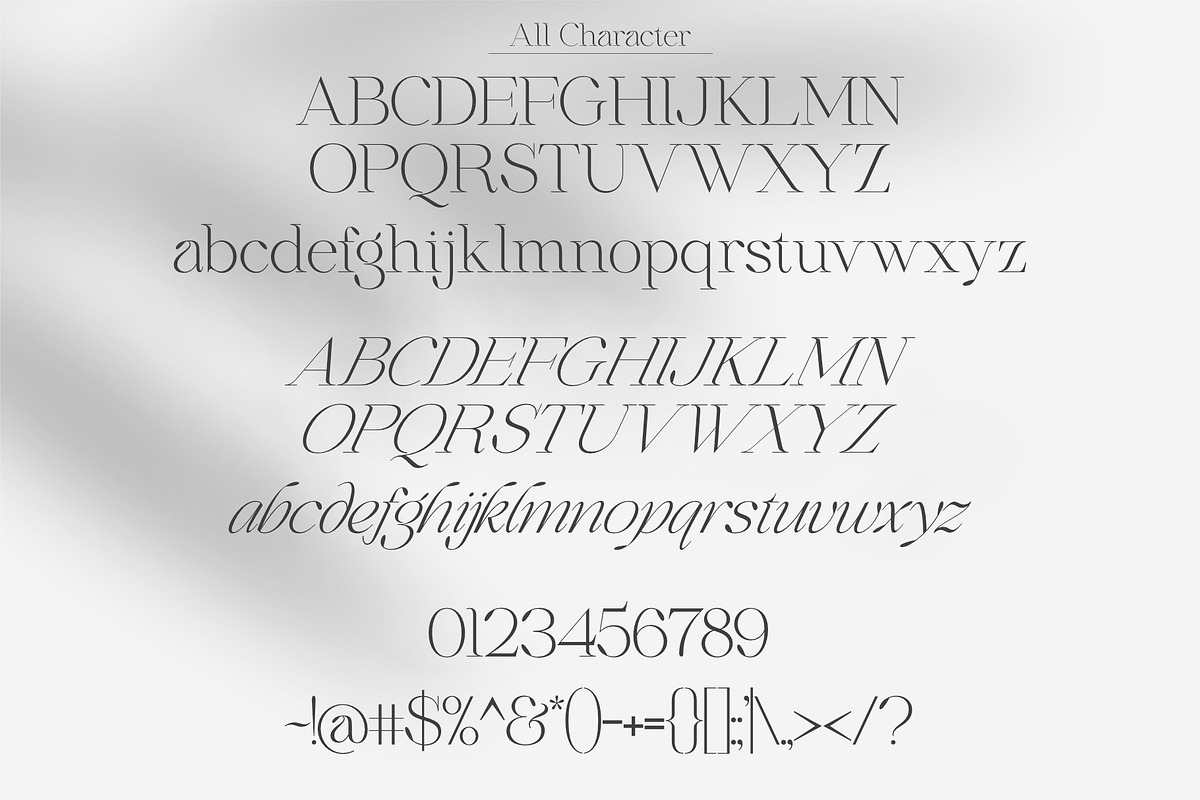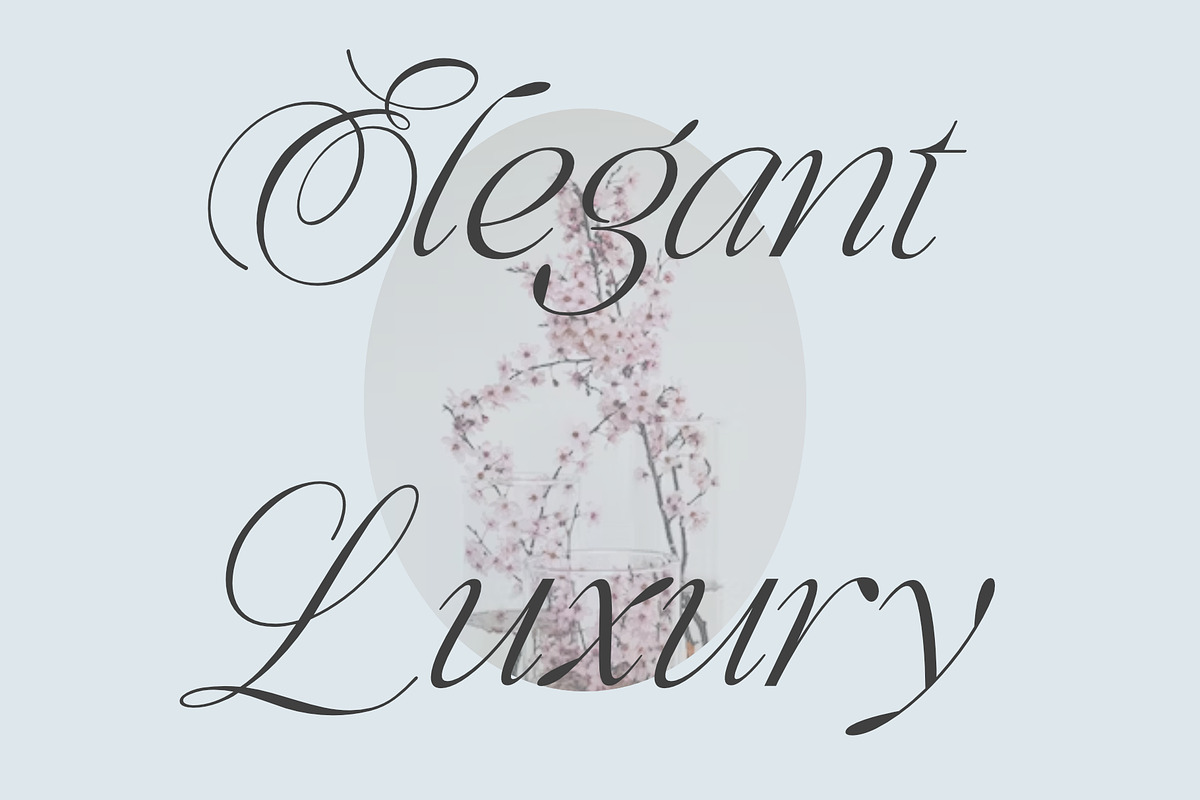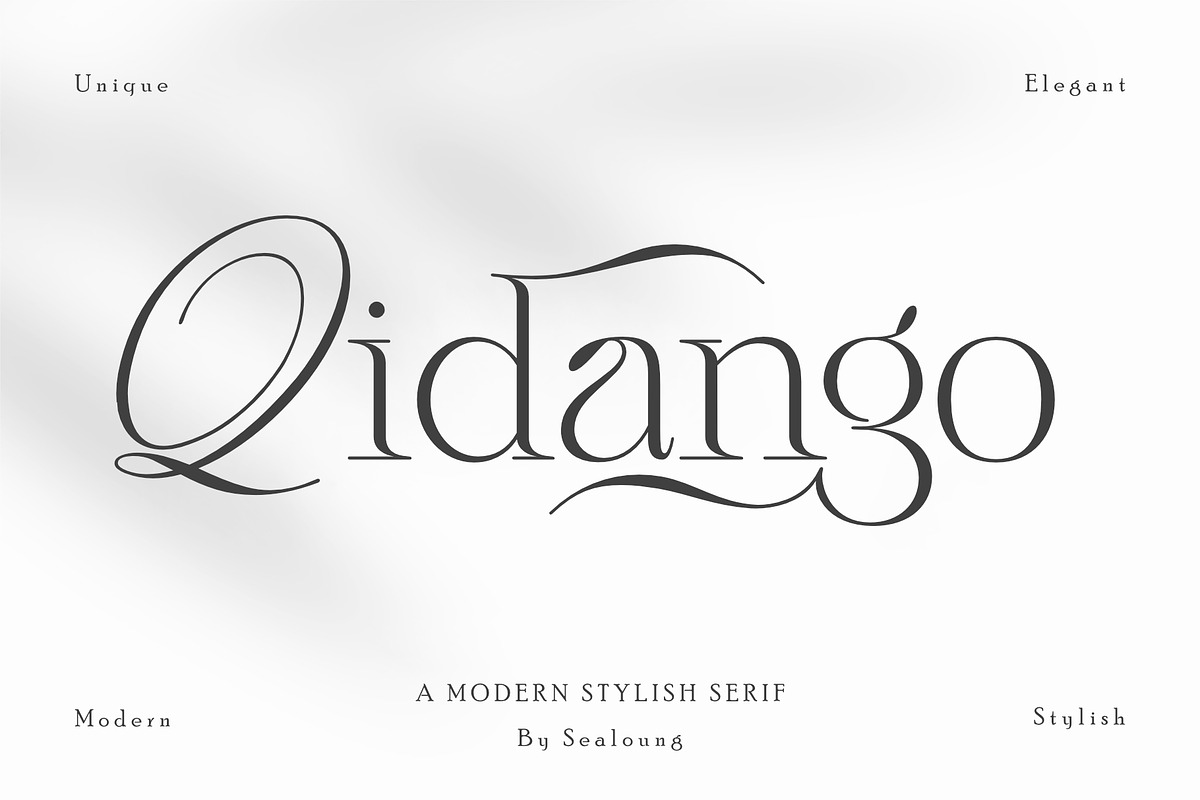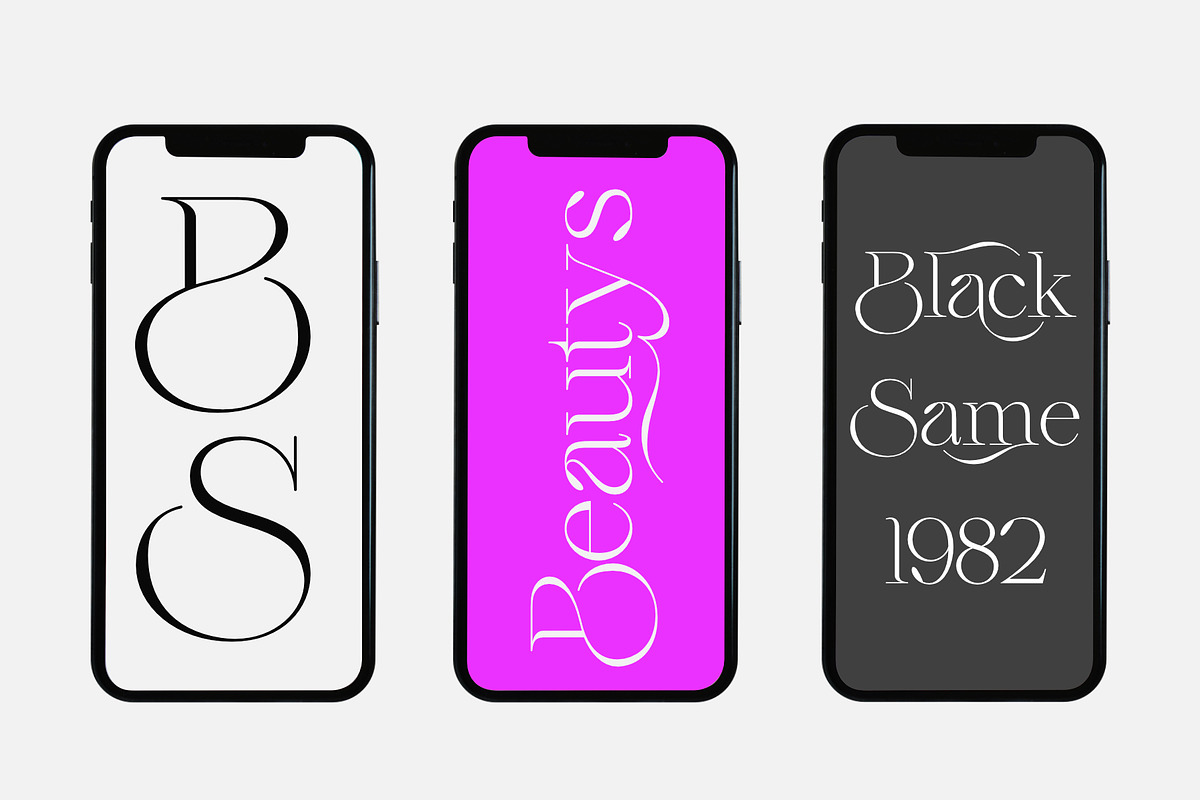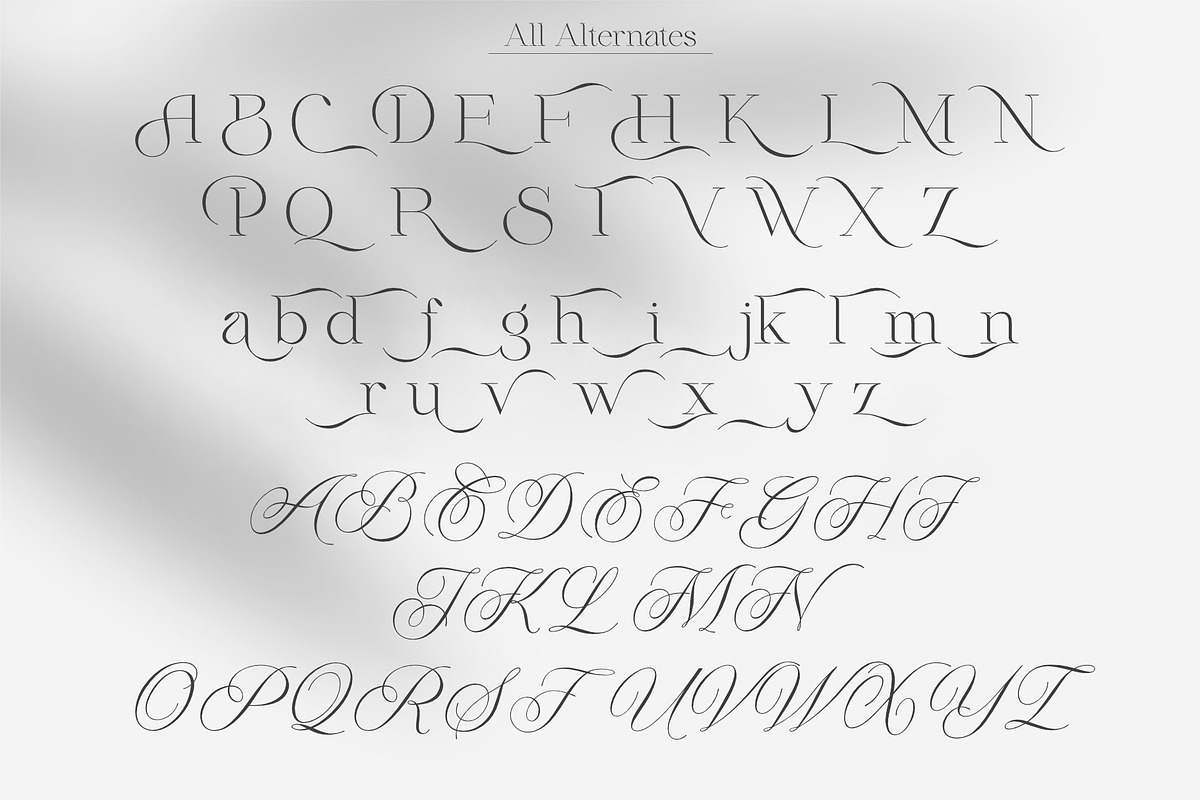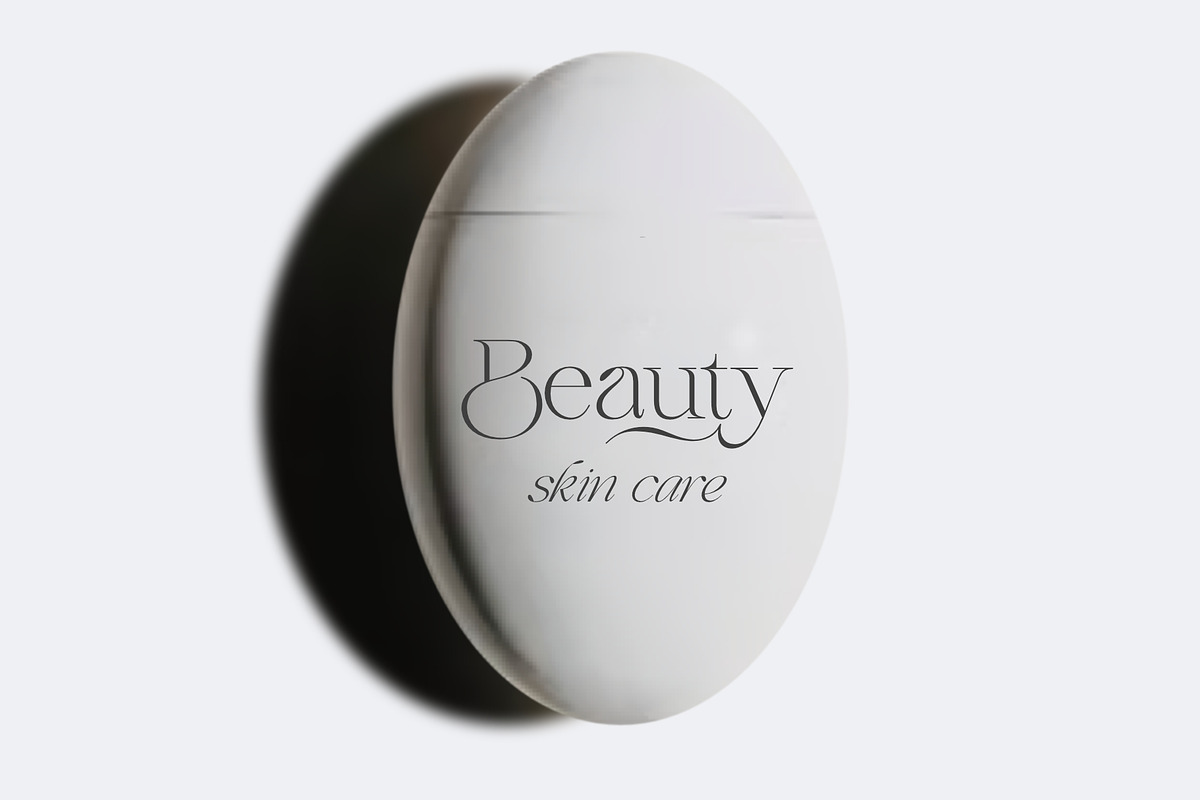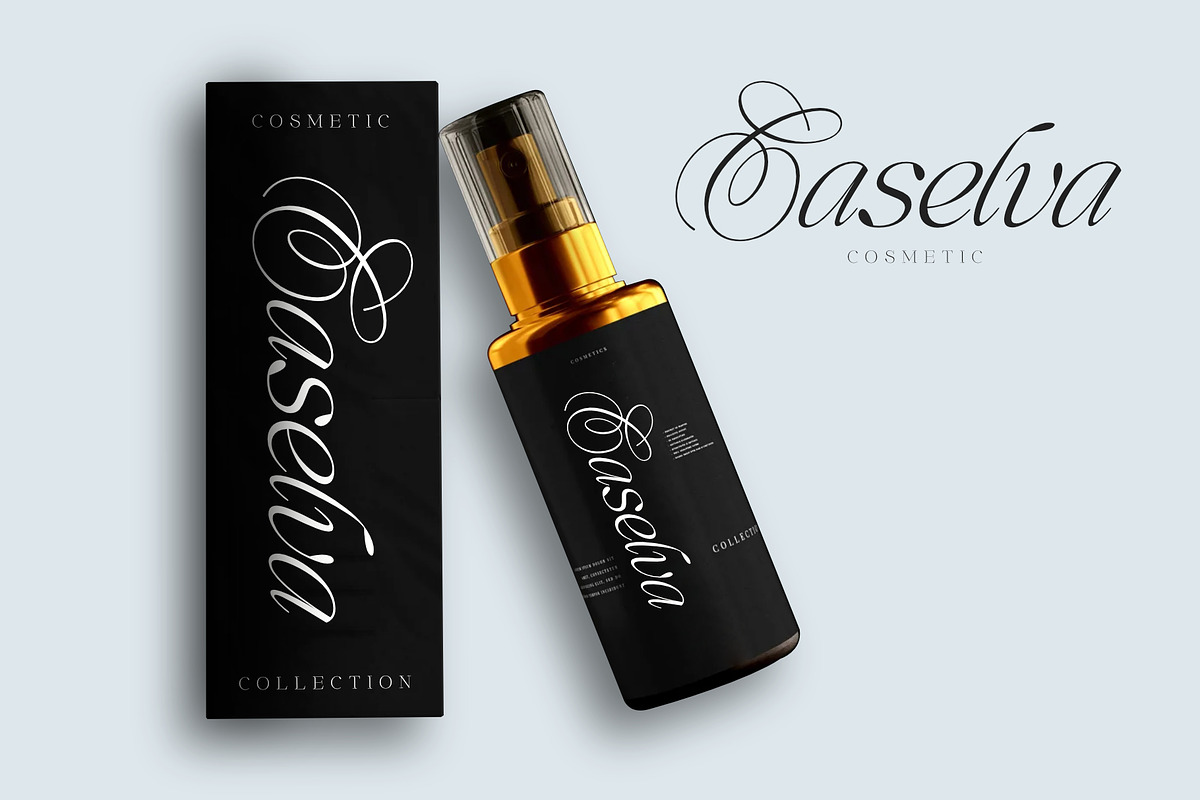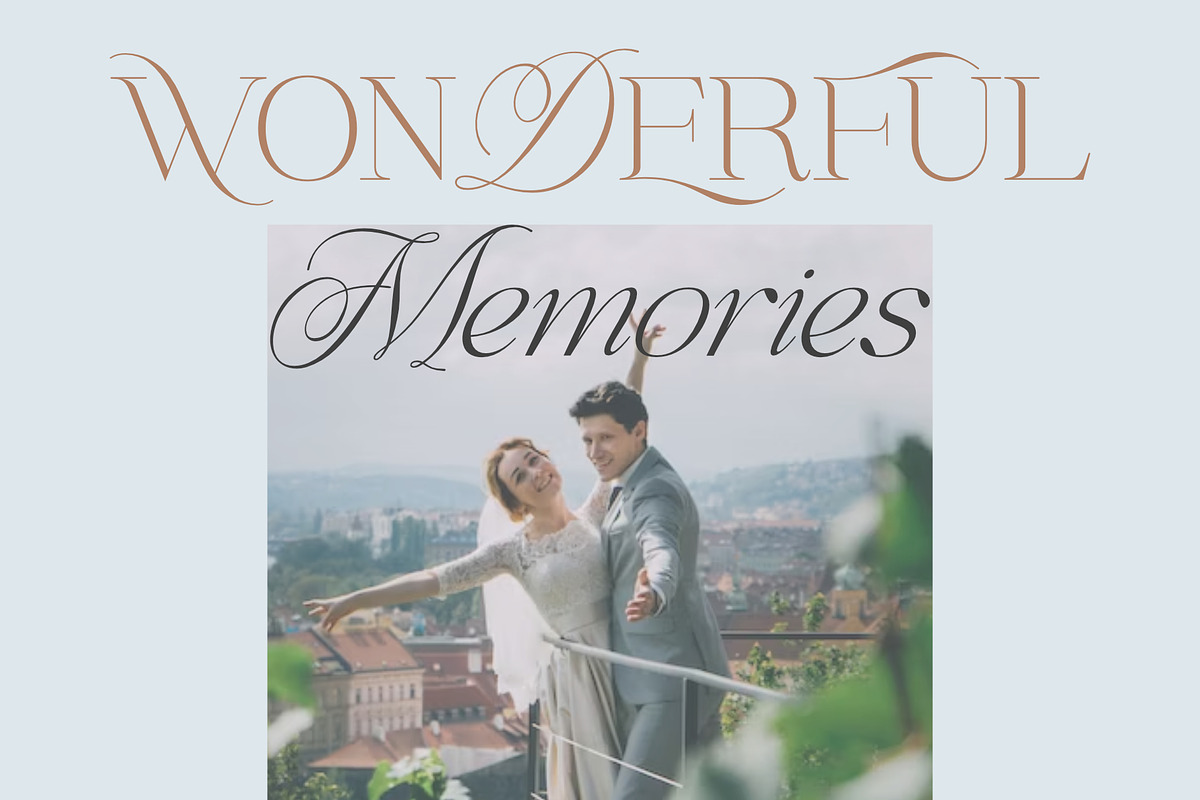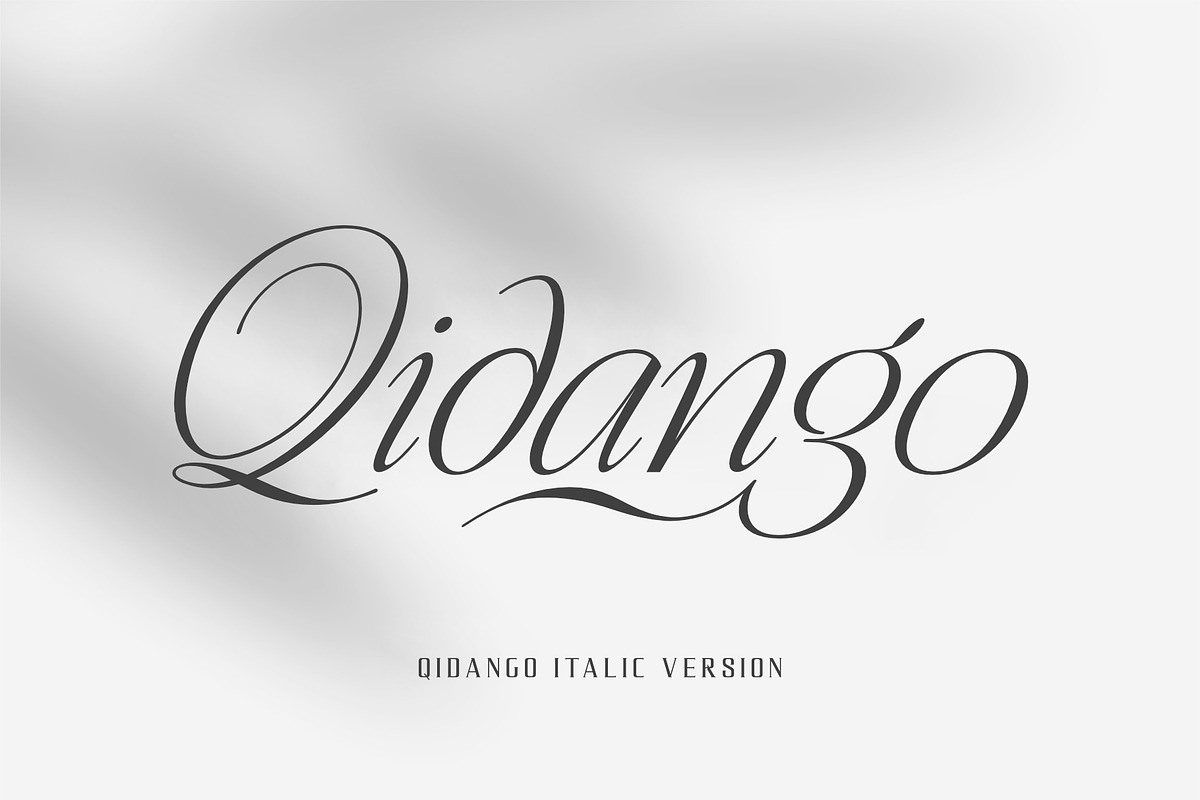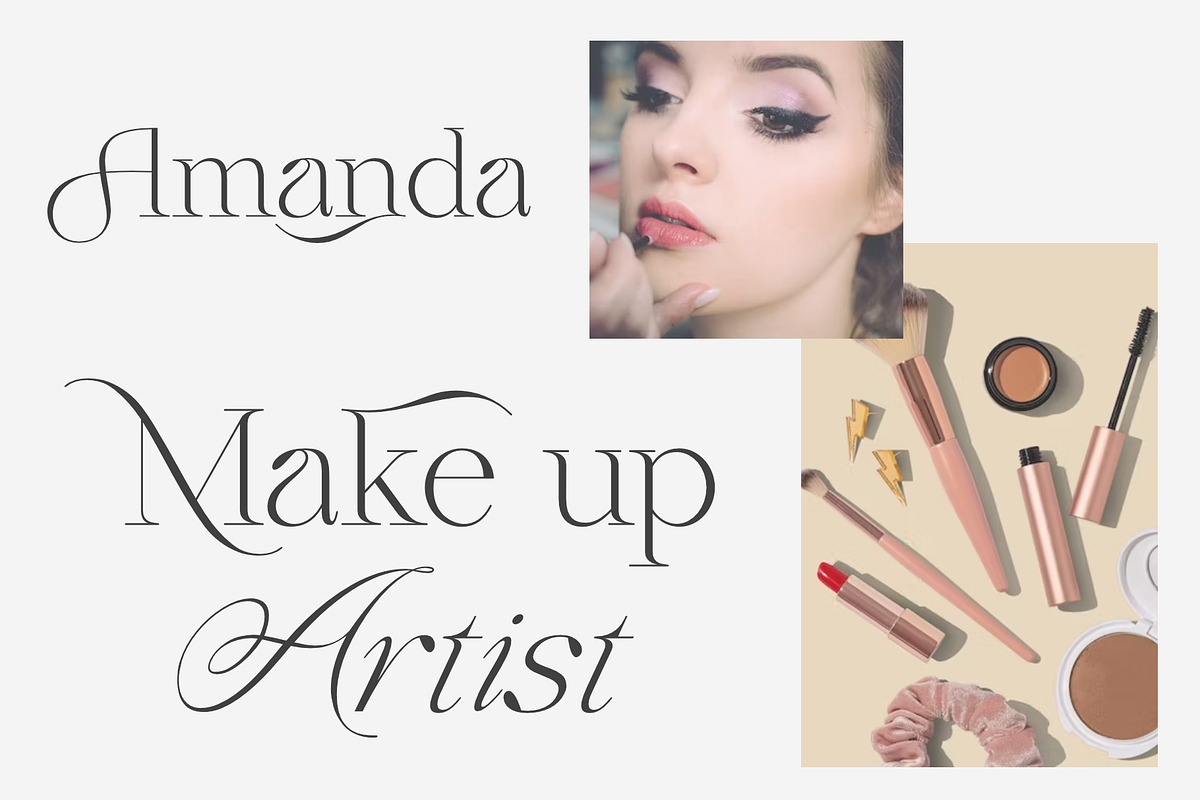
Qidango
Introducing, Qidango is a serif typeface created with elegance and luxury, exuding femininity and glamour, but also a side of beauty with many alternatives to help you create endless variations for your creative needs.
Featuring an italic style with striking contrasts and subtle details, as well as luxurious strokes and voluptuous curves, it creates a beautiful and powerful statement for any typographic composition, combining glamor with a contemporary aesthetic.
Qidango's elegant serif really helps you create unlimited variations for your creative needs in creating your project titles: such as fashion, magazines, logos, branding, photography, invitations, wedding invitations, quotes, blog headers, posters, advertisements, postcards, books, website, etc.
- Complete set of uppercase, lowercase letters
- Numbers, symbols & punctuation
- Characters with accents
- Supports Multiple Languages